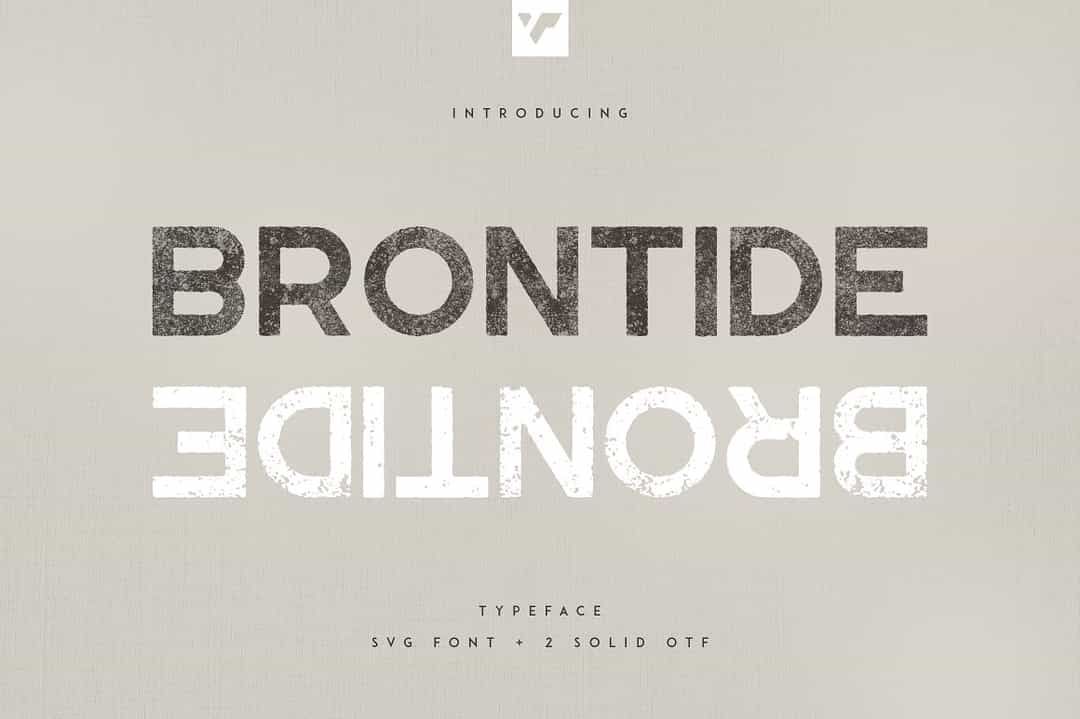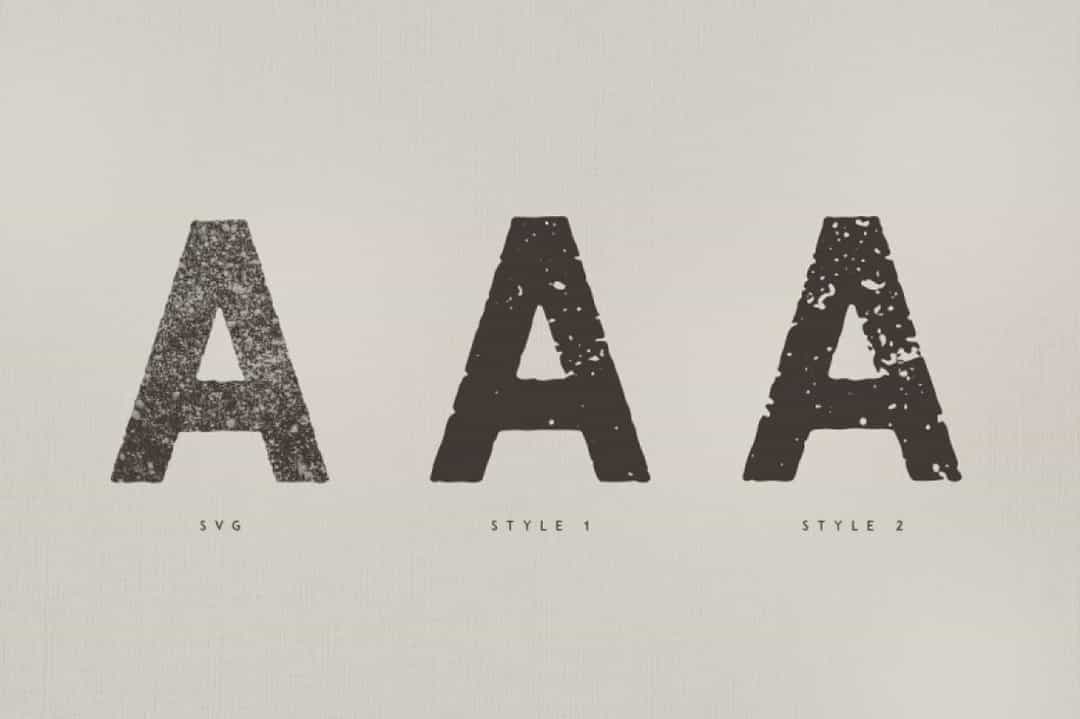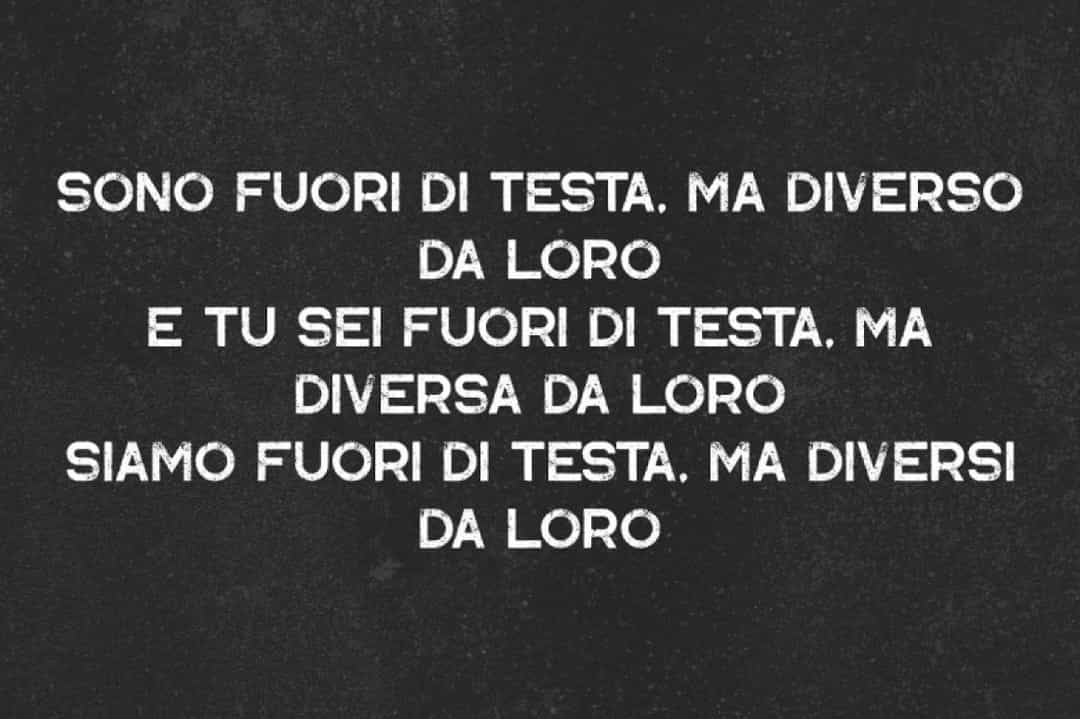
BRONTIDE is a stylish sans-display typeface perfect for digital design, crafting presentations or greeting cards – or as simple text overlay on every background picture! Ideal for branding purposes and homeware designs as well as packaging products.